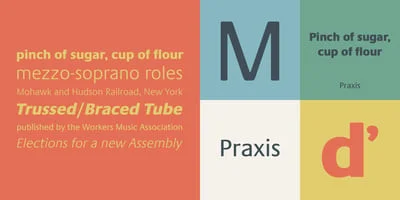
Praxis Font
Praxis Font is perfect for architectural blueprints, engineering documentation, technical manuals, scientific publications, medical reports, corporate presentations, professional portfolios, academic research papers, construction project plans, and precision-focused design layouts.
What makes Praxis Font exciting is its exceptional clarity and systematic approach to typography that reflects the principles of practical application and functional design. This methodical typeface embodies the essence of precision engineering with its clean geometric structure and unwavering consistency, making complex information accessible and professional documents instantly credible. The font's scientific precision creates trust and authority in any application.
Praxis Font family includes multiple weights from Light to Black, with matching italic styles for each weight. The comprehensive character set features extended punctuation, mathematical symbols, and technical notation marks, ensuring complete coverage for professional and academic applications across international languages.
Technical professionals consistently rely on Praxis Font for projects demanding absolute precision and professional credibility. This outstanding typeface represents the gold standard in functional typography, combining Swiss design methodology with German engineering principles to deliver unmatched performance in technical communication. The meticulously crafted letterforms ensure optimal readability in both print and digital formats, making it essential for industries where accuracy and clarity are non-negotiable requirements.